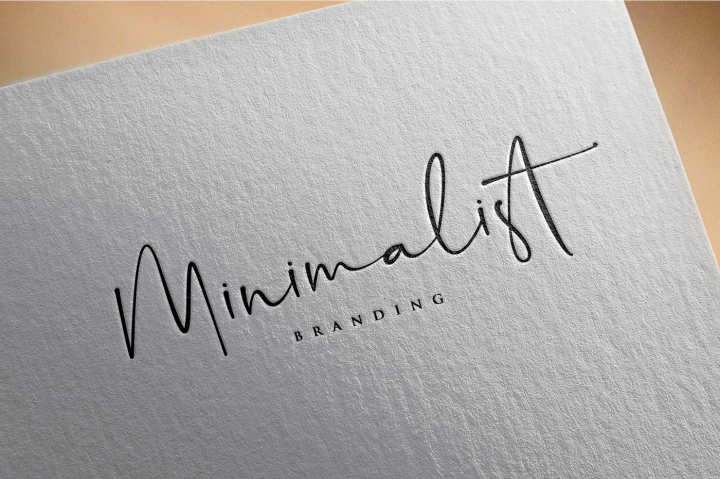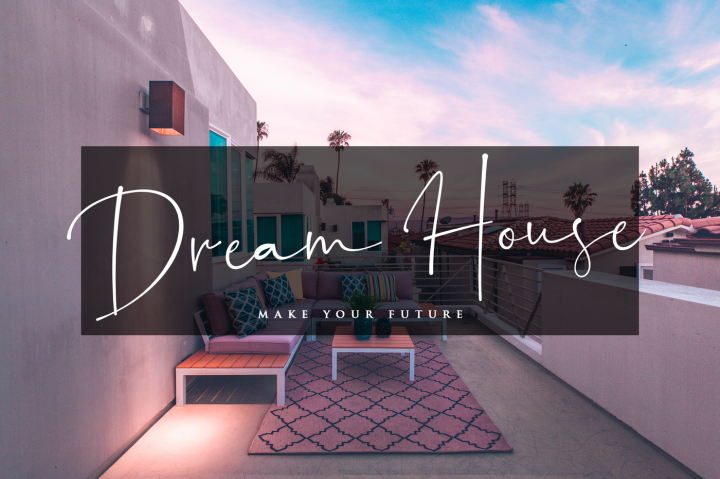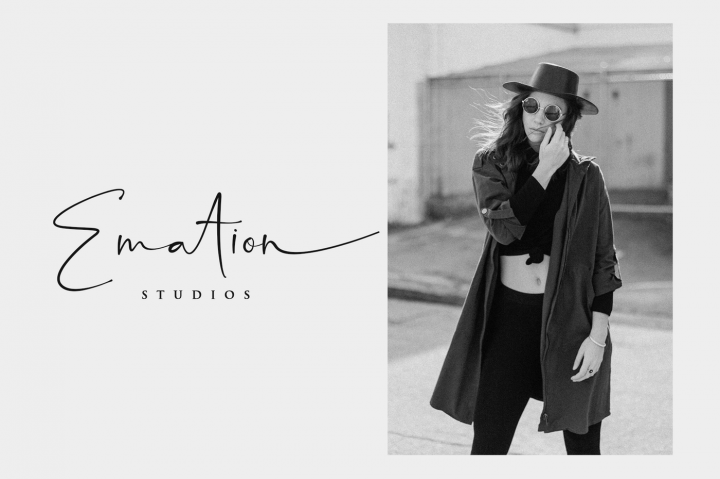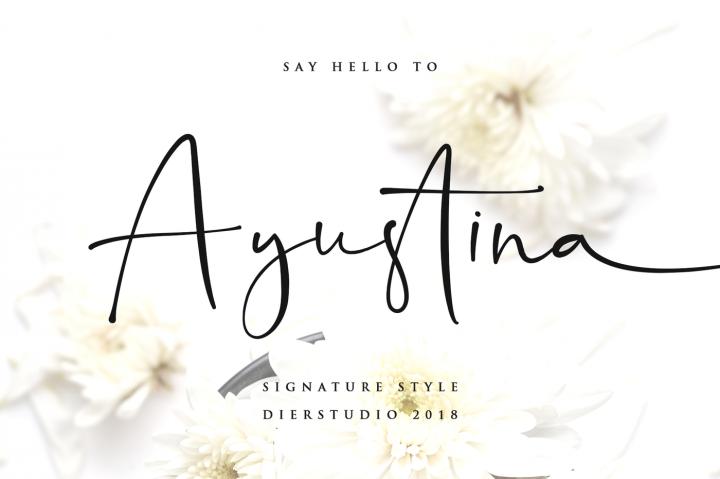
Ayustina Signature Font
Hello Everyone! A fashionable and modern handwriting font script with some fun impression. Introducing Ayustina Font. Ayustina script font was created to look as close to a natural handwritten style, It’s highly recommended to use it Ayustina font is to use for any kind of design such as branding projects, logos, wedding designs, social media posts, advertisements, product packaging, product designs, labels, photography, watermarks, invitation, stationery and any